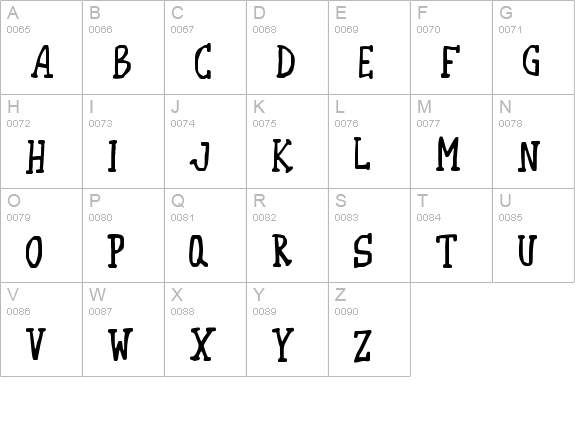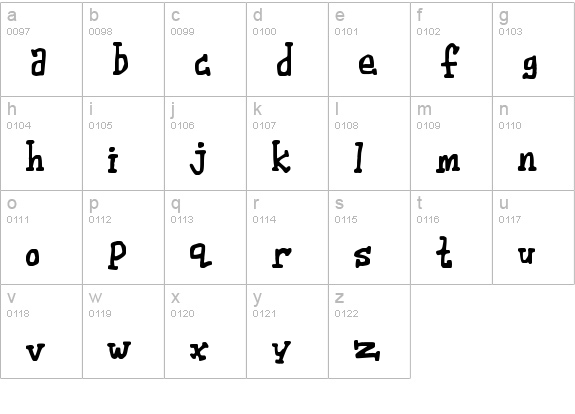
Wibble New Font Details
Wibble New is a free for personal use font in the Fancy > Decorative category, designed by Darrell Flood. It has been downloaded 75 times and is available for Windows, Mac and Linux.
Introducing Wibble, a fresh and modern font that is sure to elevate your design projects to the next level! With its sleek lines and stylish curves, Wibble is perfect for adding a touch of sophistication to any creative endeavor. This versatile font is ideal for a wide range of applications, from branding and advertising to invitations and social media graphics.